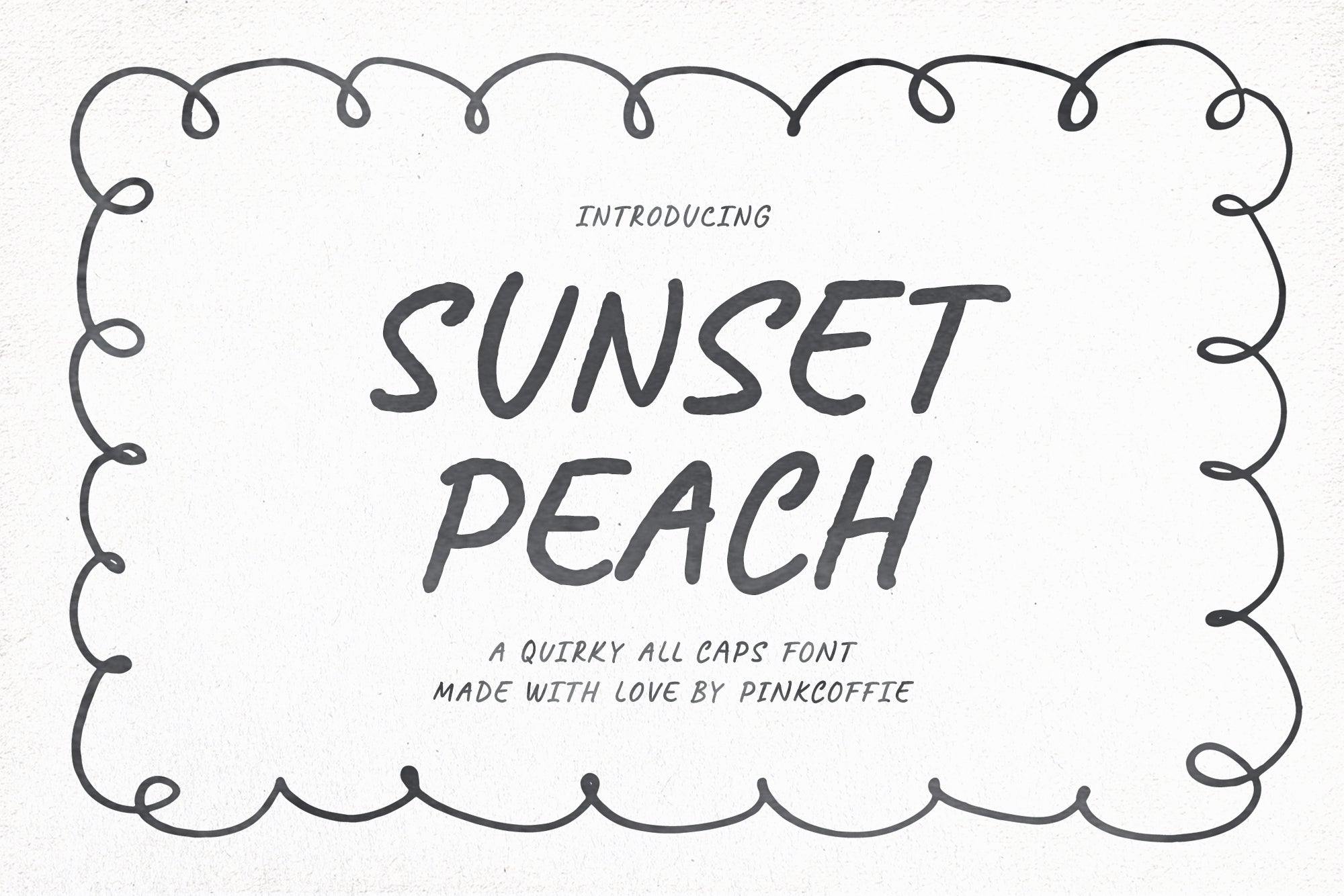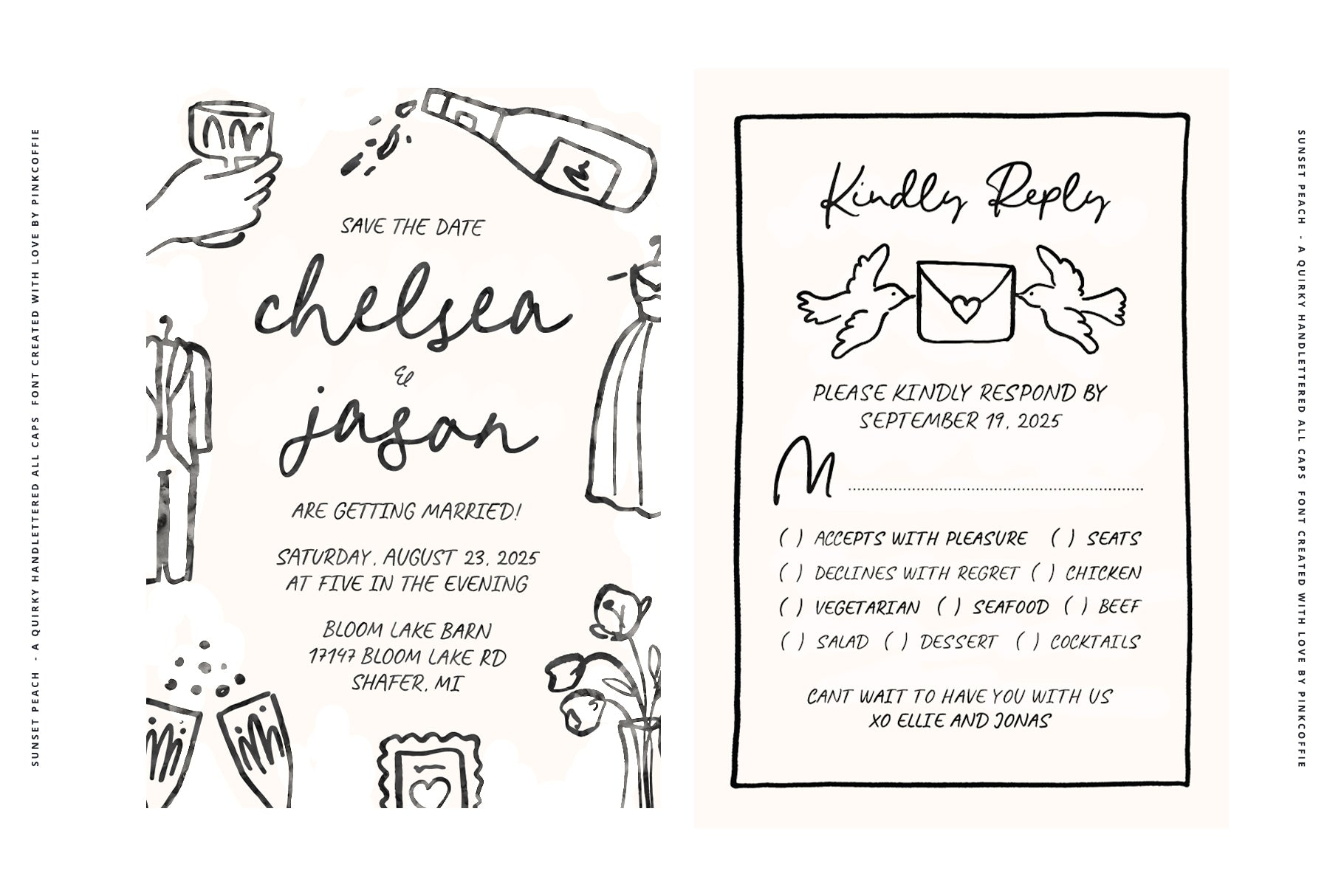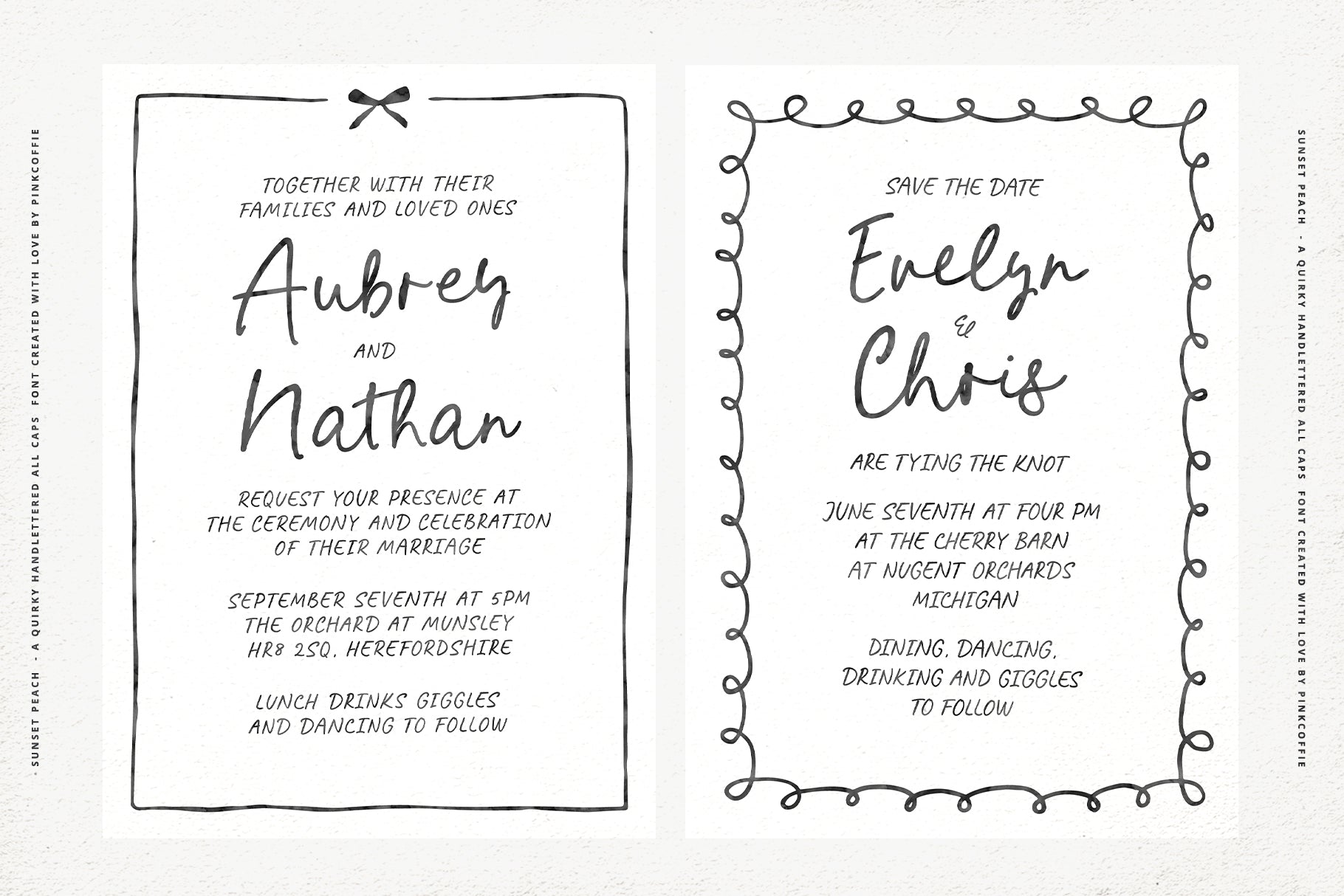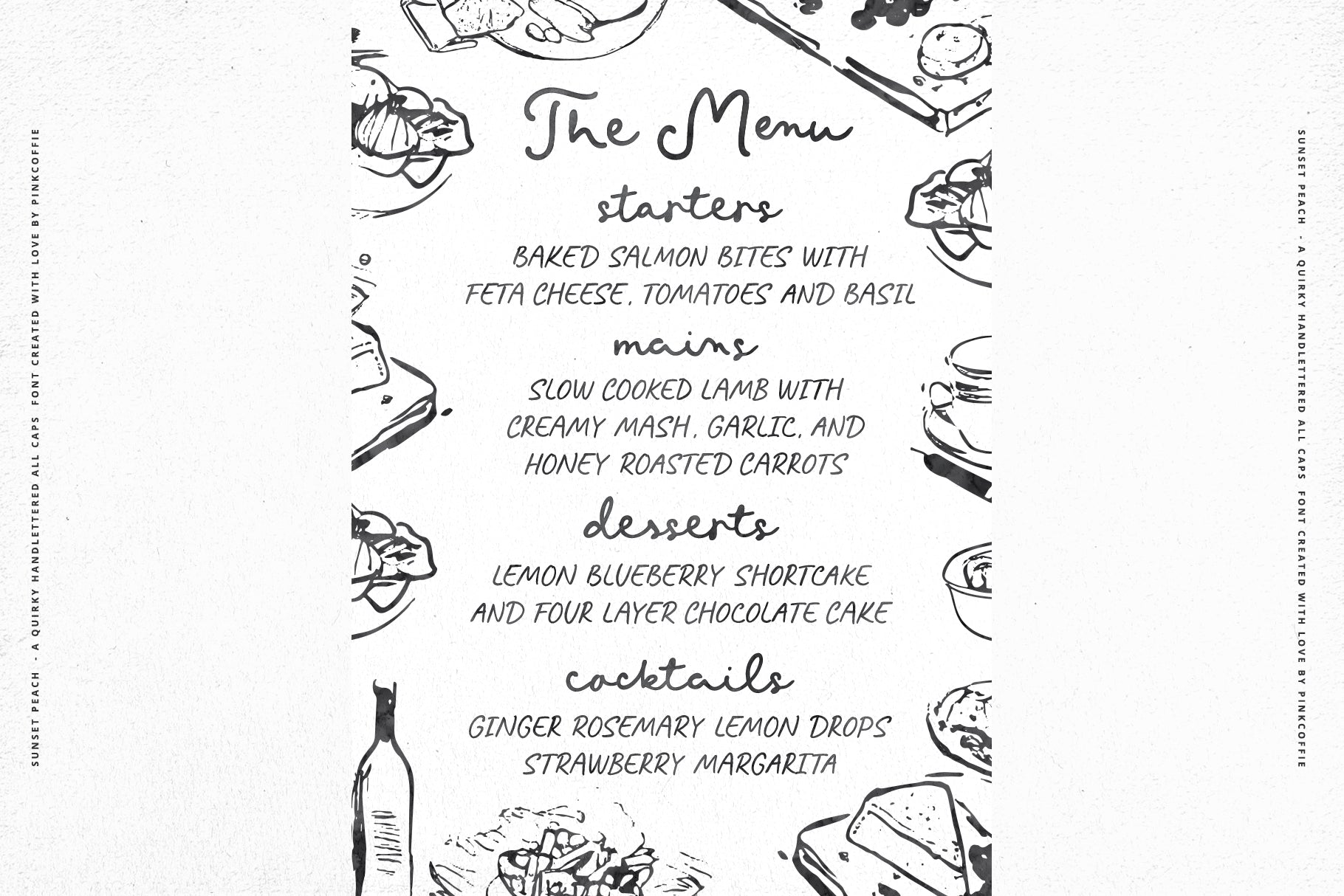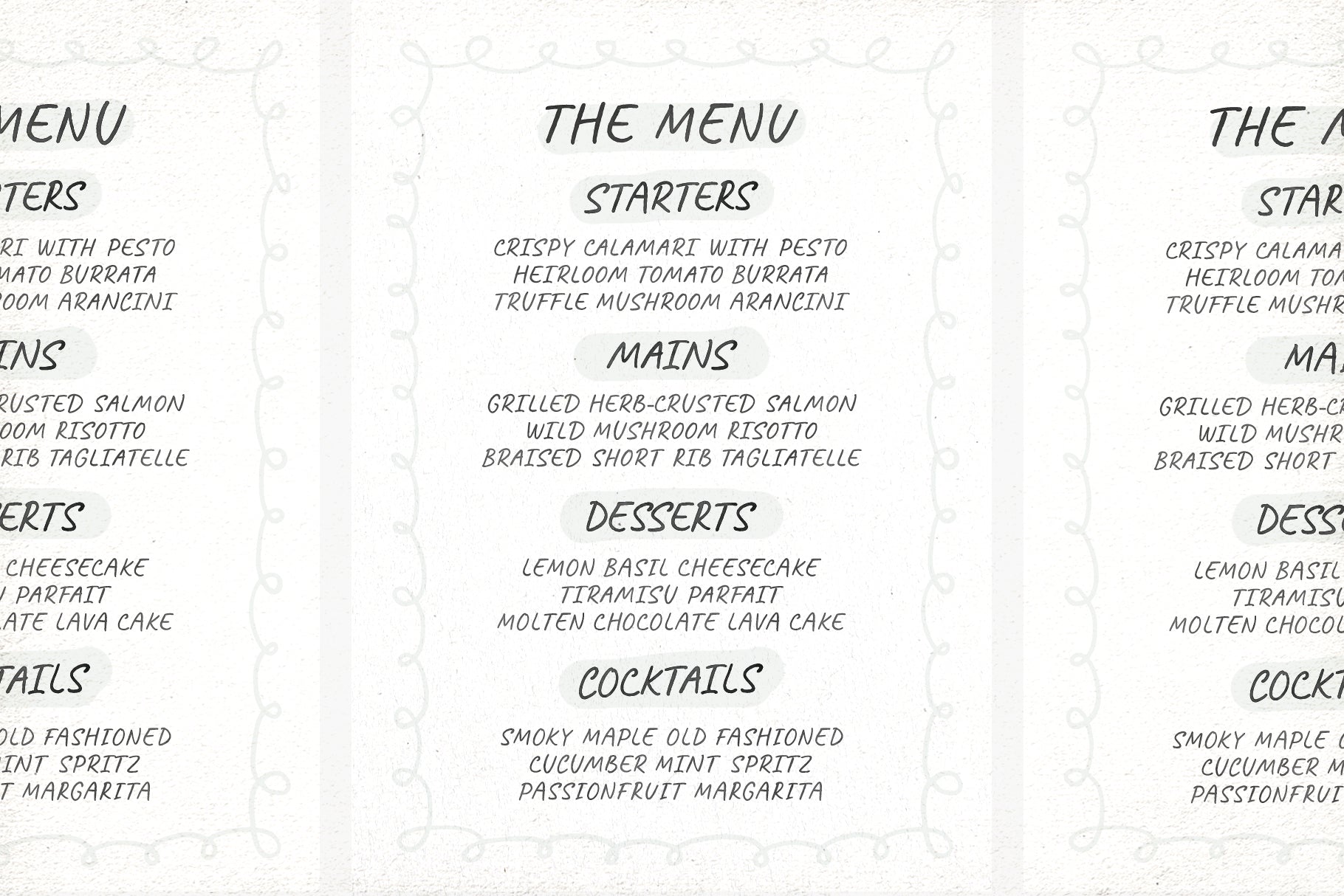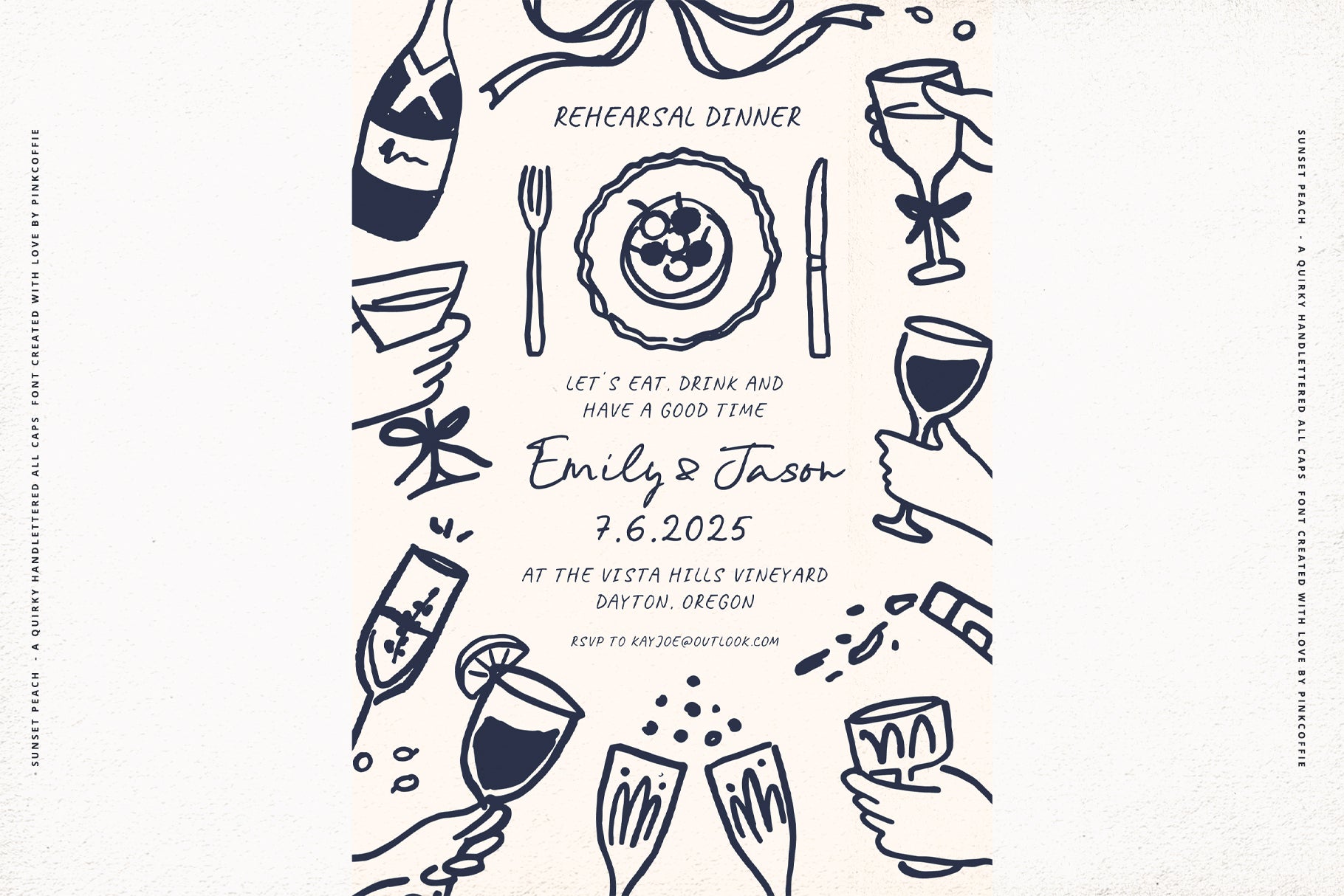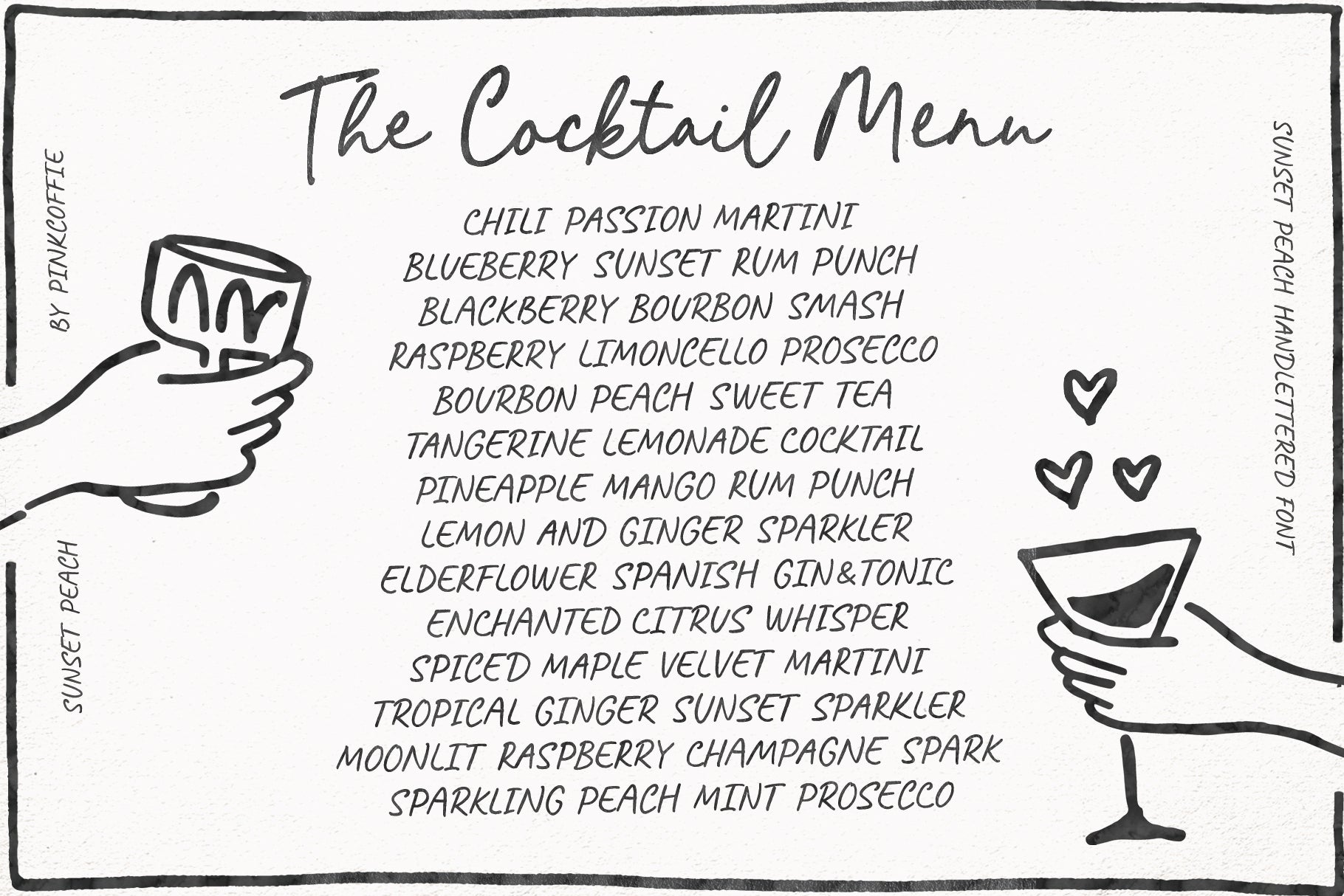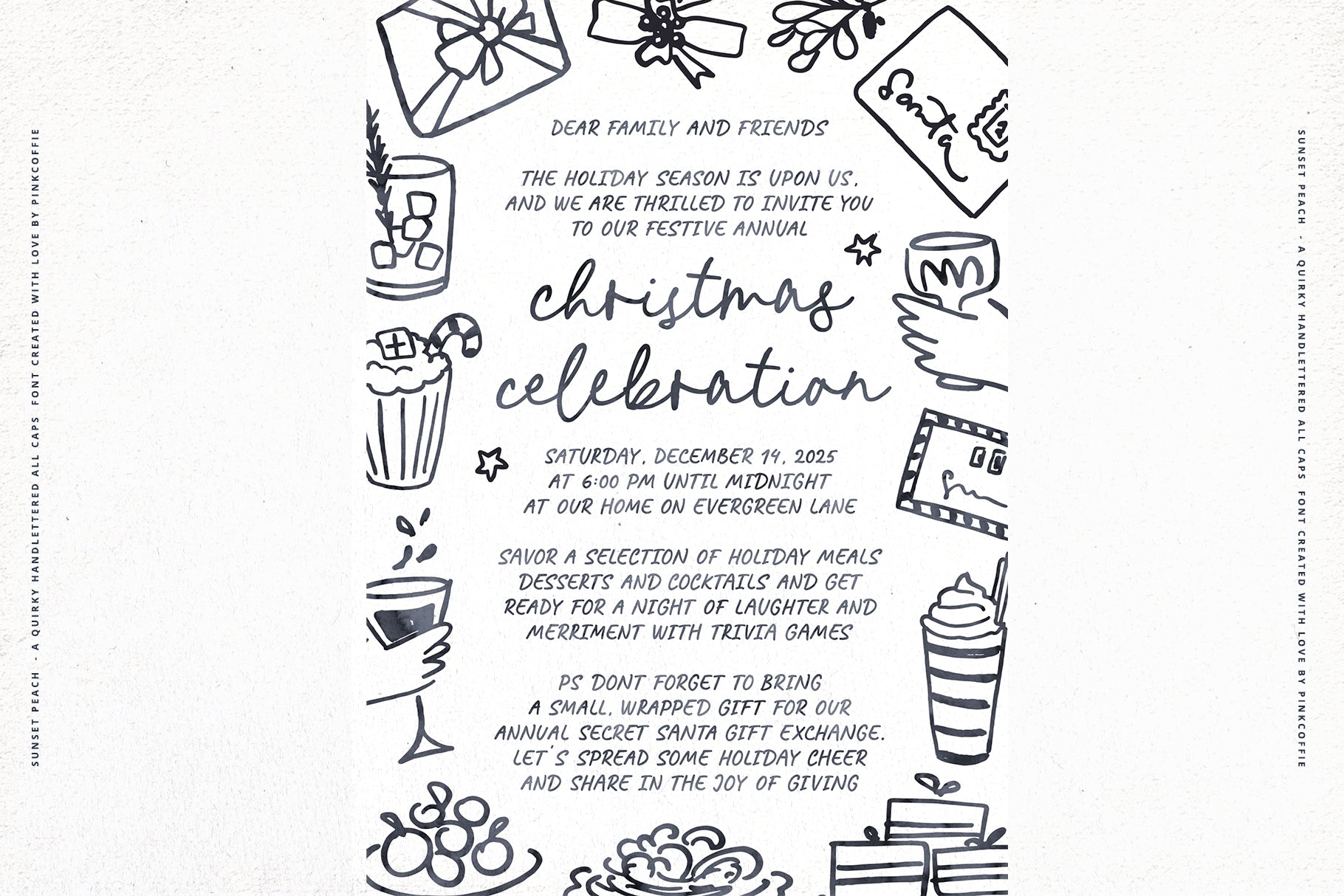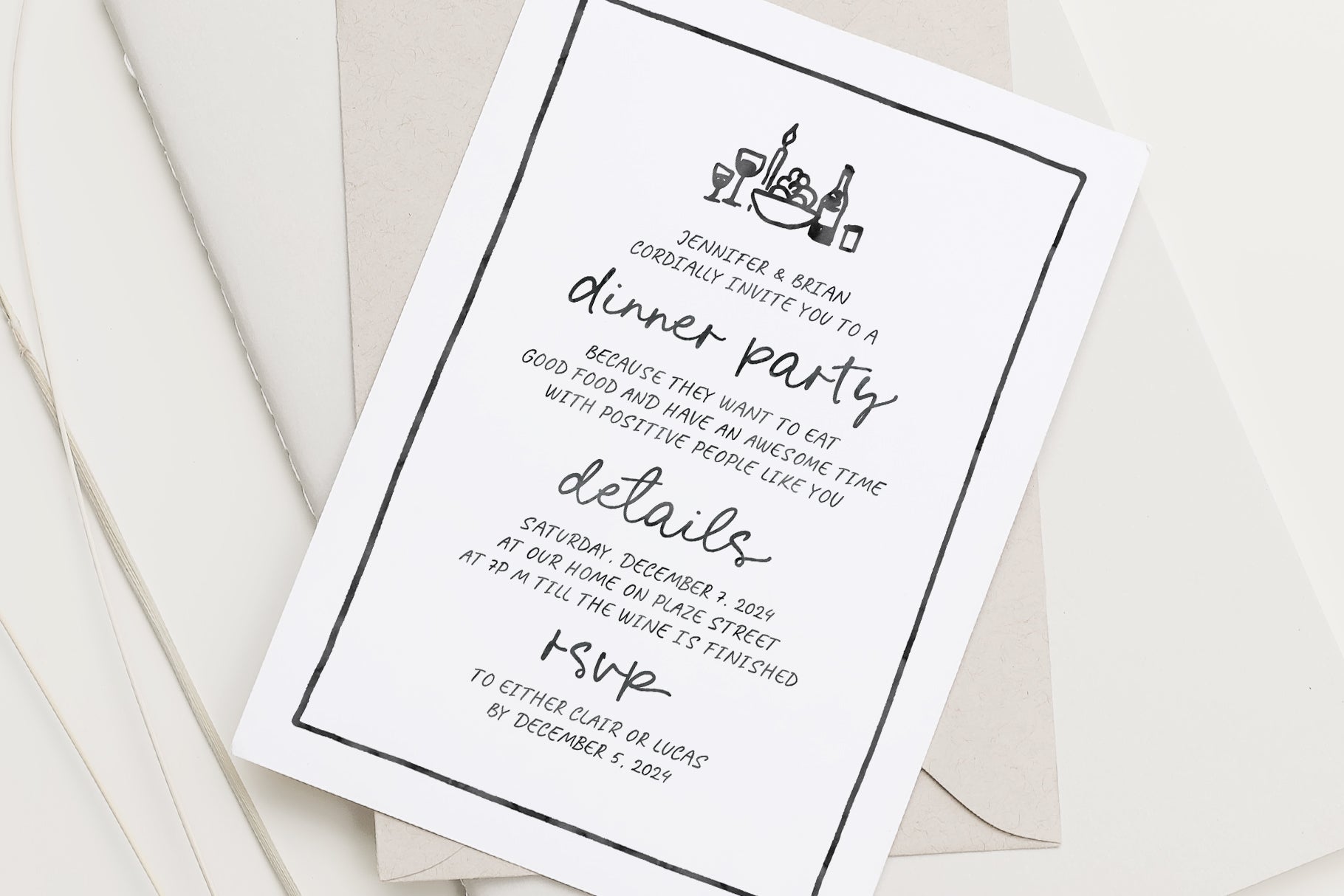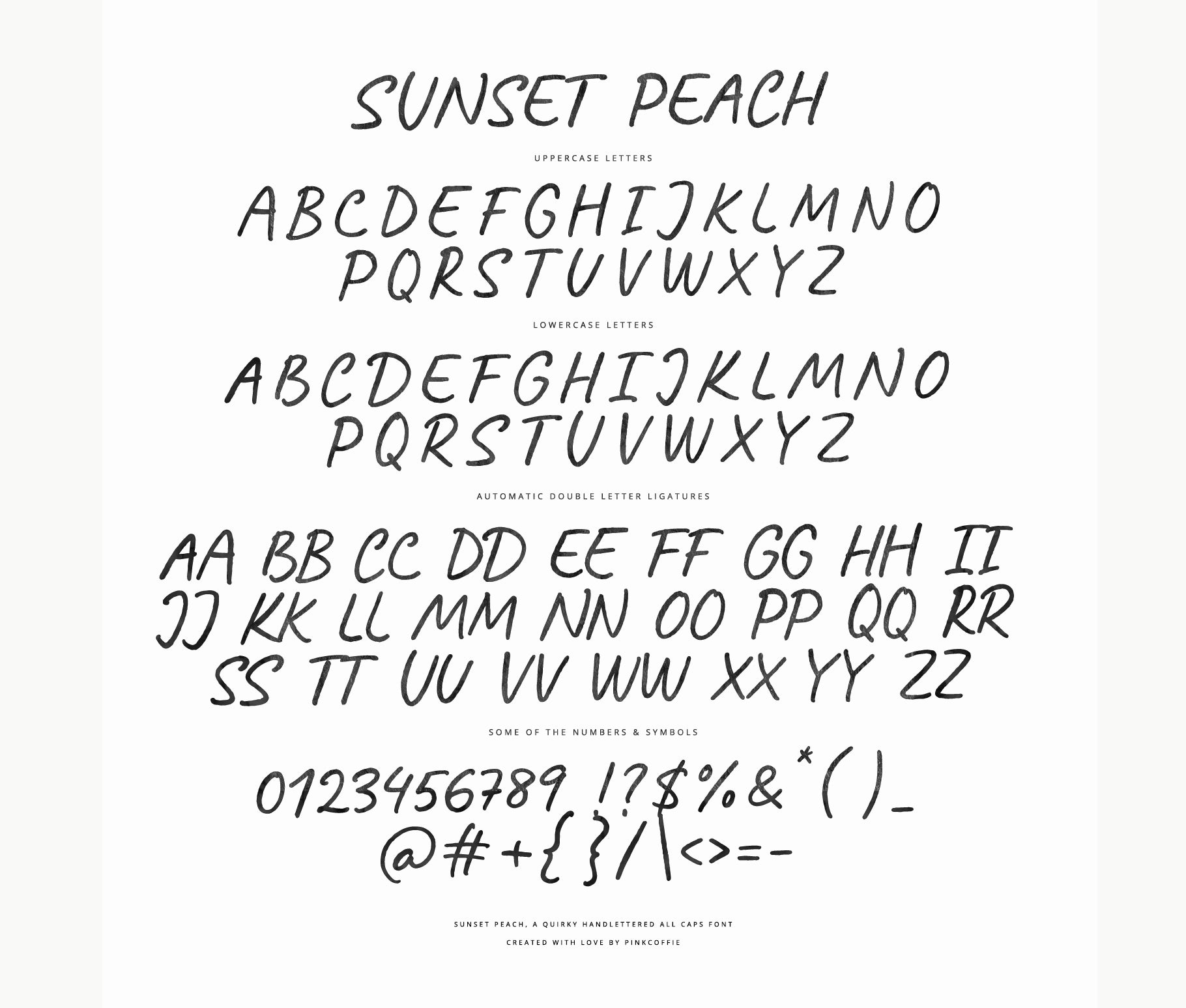
Sunset Peach
Say hello to Sunset Peach, a quirky handwritten all caps font created to mix and match with whimsical hand-lettered script fonts of all sorts to create trending whimsical wedding stationery, quirky restaurant or cocktail menus, art prints, playful apparel, organic branding or logo designs, or any other projects that need a touch of handwritten whimsy charm.
Sunset Peach includes all the regular all caps uppercase and lowercase characters, numbers, symbols, automatic double letter ligatures, multilingual support, and Contextual Alternates for those of you who use OpenType compatible software that supports this option such as Photoshop, Illustrator…